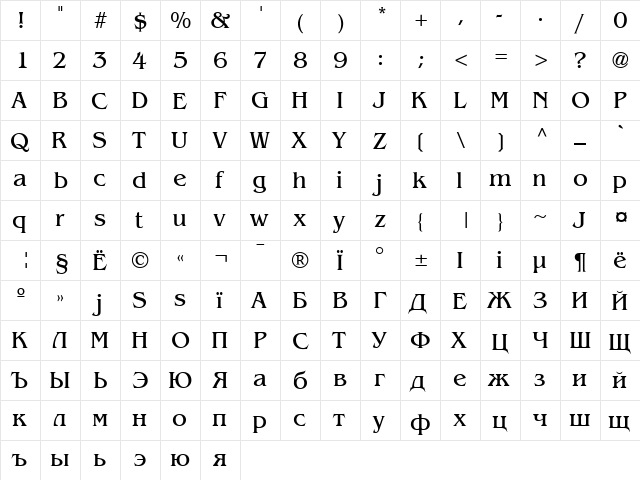
AGBenguiatCyr Book Font Preview
AGBenguiatCyr Book
Design Context for AGBenguiatCyr Typeface
AGBenguiatCyr takes a measured approach to typography — its balanced proportions and neutral character make it a reliable workhorse for both digital and print work.